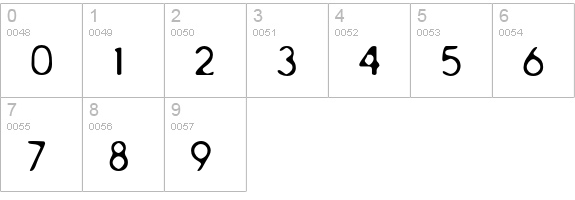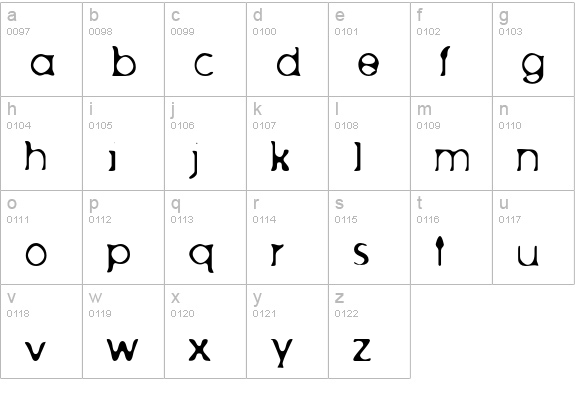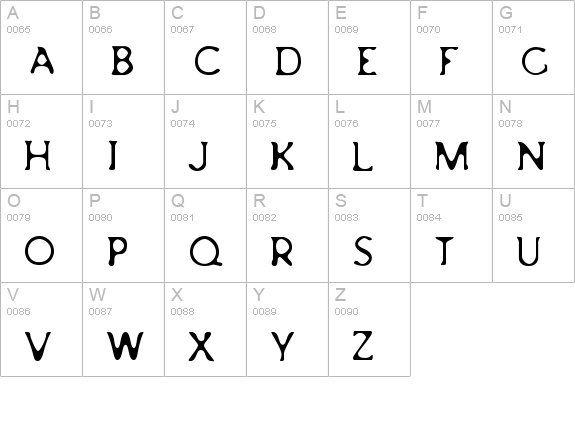
AchillesBlurLight-Regular is the standard, neutral variant in the AchillesBlurLight typeface family \xE2\x80\x94 well suited to general body text, paragraphs, and standard typographic work.
AchillesBlurLight-Regular is a versatile and modern font that exudes elegance and sophistication. With its sleek lines and stylish curves, this font is perfect for adding a touch of class to any design project. Whether you are creating a logo, designing a website, or working on a print advertisement, AchillesBlurLight-Regular is sure to make a statement. The best part? AchillesBlurLight-Regular is completely free to download at FontsMarket.com. This means you can access this stunning font without any cost, making it a valuable addition to your font collection. Don't miss out on the opportunity to enhance your projects with the beauty and versatility of AchillesBlurLight-Regular. Download it today and take your designs to the next level.